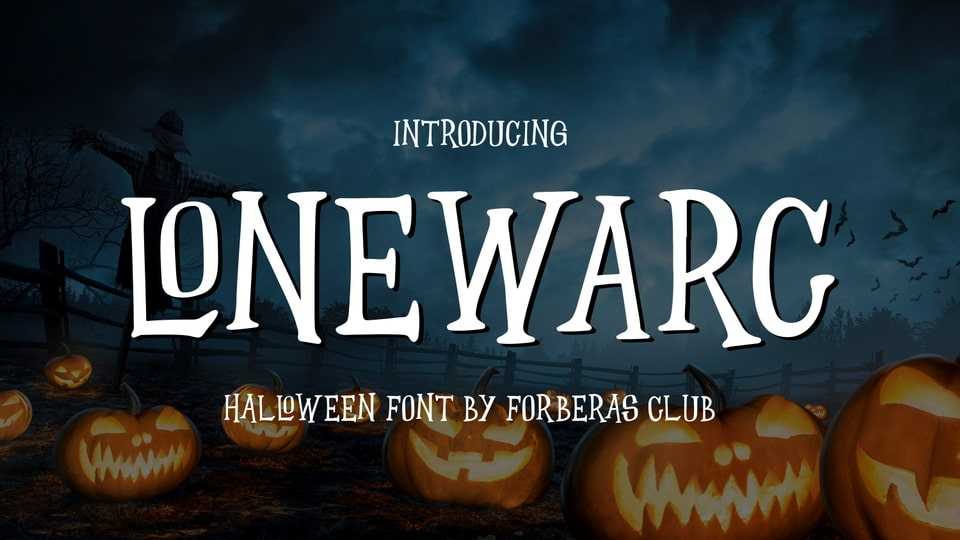
Download Lonewarc font, a bouncy display typeface that will make your branding shine. Use it for your headings, logos, ads, printed quotes, packaging, and even your website or social media branding.